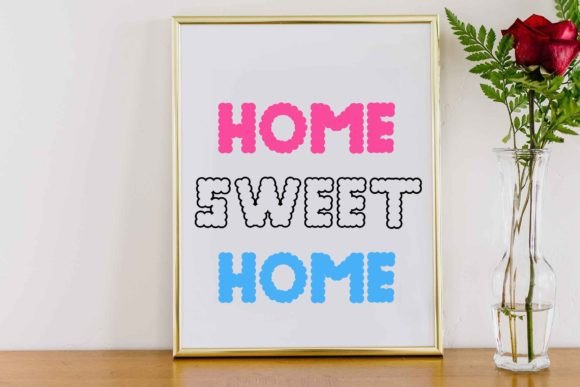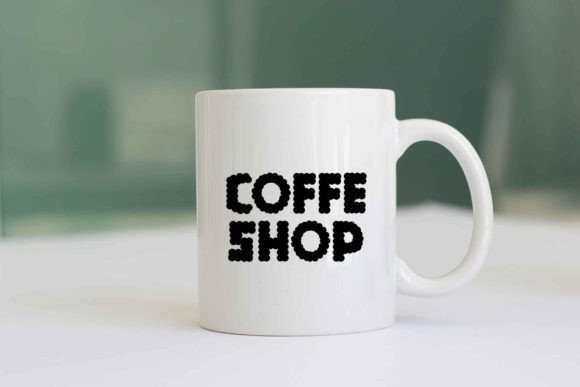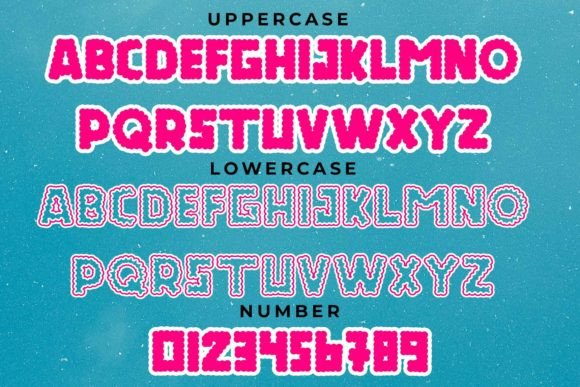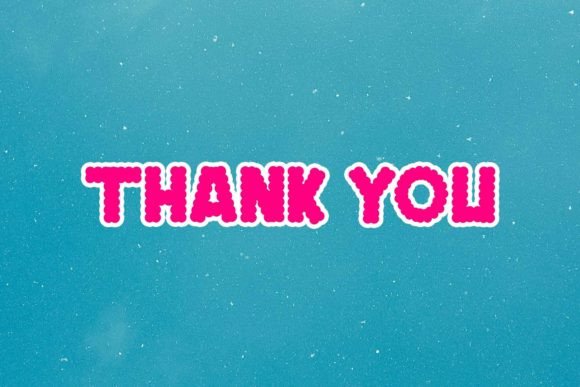
The Unconventional Charm of Bubble Font: A Designer’s Delight
I’ll never forget the time I was working on a quirky craft project, trying to find the perfect font to match its playful vibe. I scrolled through page after page of Google Fonts, but nothing seemed quite right. That was until I stumbled upon Bubble Font – a strange and unique typeface that instantly captured my attention. Its irregular shape and bouncy curves made it an instant favorite, and I knew I had to share it with fellow designers and crafty enthusiasts.
An Honest Review: The Good and the Quirky
Bubble Font has won my heart with its distinctive charm, but like any font, it’s not without its quirks. Here’s what I love:
• ✨ Unique and playful design that’s perfect for creative projects
• ✅ Available in uppercase, lowercase, and number letters
• ✅ Great for attention-grabbing social media posts, t-shirts, and crafts
• ✅ Easy to read, despite its unconventional shape
However, there are a few things to keep in mind:
• 🤔 May not be suitable for formal or professional projects
• ⚠️ Limited use in body text due to its decorative nature
Bubble Font supports OpenType features, which allow you to access additional glyphs and stylistic alternates. To access these features:
Experiment with different glyphs and alternates to add more personality to your designs.
The Story Behind Bubble Font
Bubble Font was designed by a team of creatives who wanted to create a font that would stand out from the crowd. Inspired by the imperfections of hand-drawn letters, they crafted a typeface that’s both playful and charming. While the true story behind Bubble Font may be unknown, its unique personality has captured the hearts of designers and crafters worldwide.
What is Bubble Font best used for? Bubble Font is perfect for creative projects, social media posts, t-shirts, and crafts that require a playful touch.